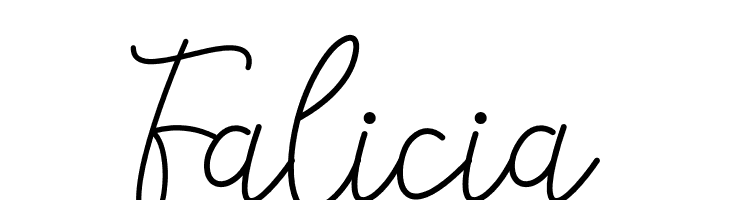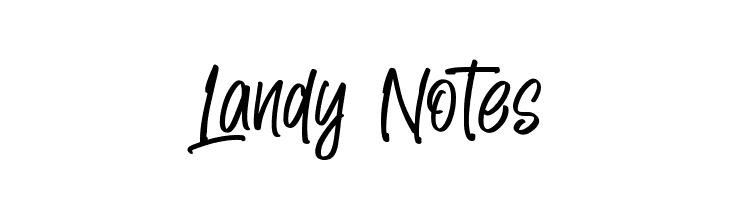
A playful, decorative font with circular cutouts and a retro vibe.
A modern, sans-serif typeface with clean lines and uniform stroke width.
A playful, outlined, and italicized font with a cartoonish, comic book style.
An artistic, cursive font with smooth curves and a whimsical flair.
A modern, dotted font with a playful and unique style.
A bold, playful font with a vintage-modern style, ideal for creative projects.
A flowing, cursive font with a natural handwritten style.
A decorative font with elegant, cursive uppercase and bold, rounded lowercase characters.
A bold, geometric font with a modern and abstract style.
A lively, handwritten font with bold, cursive strokes.